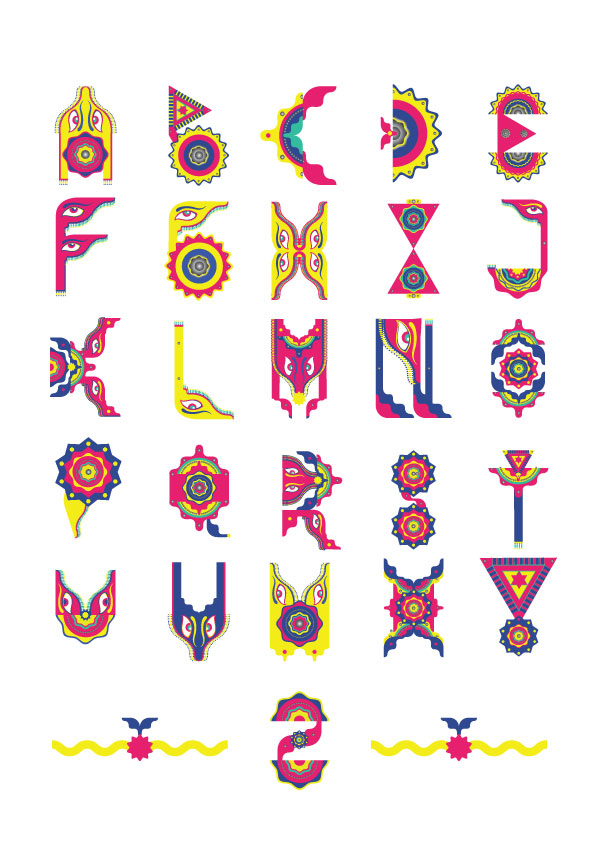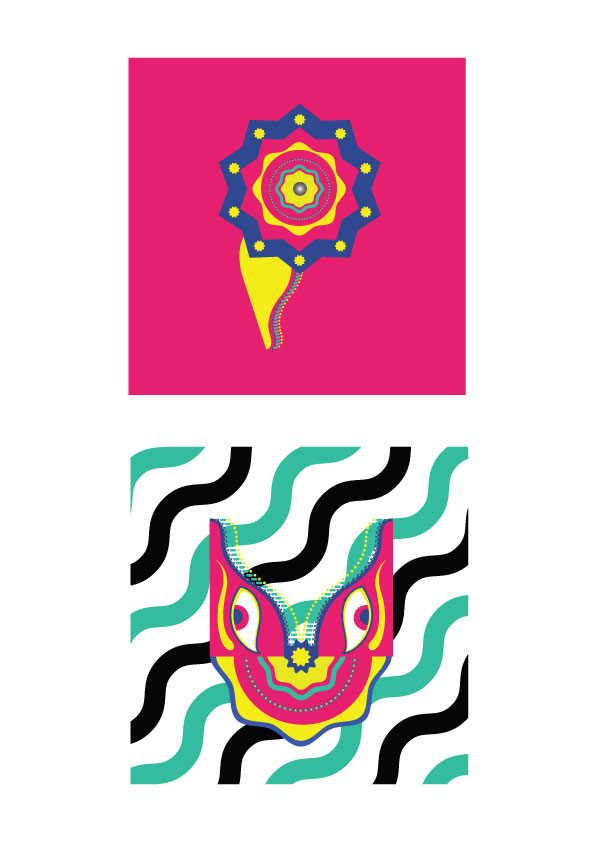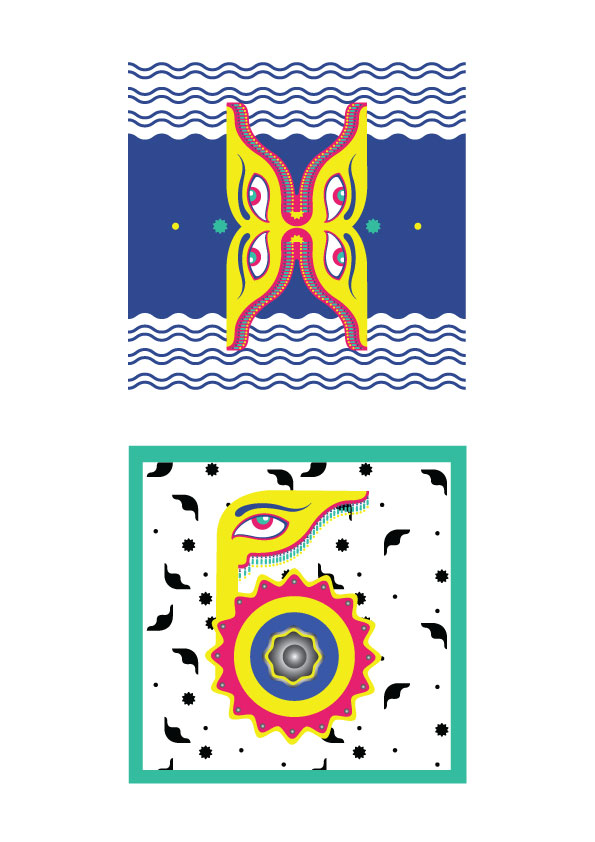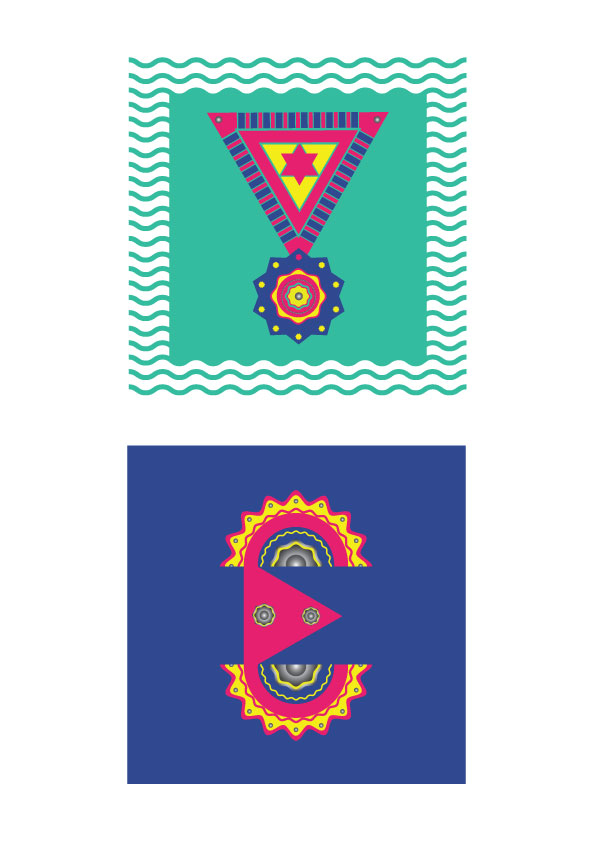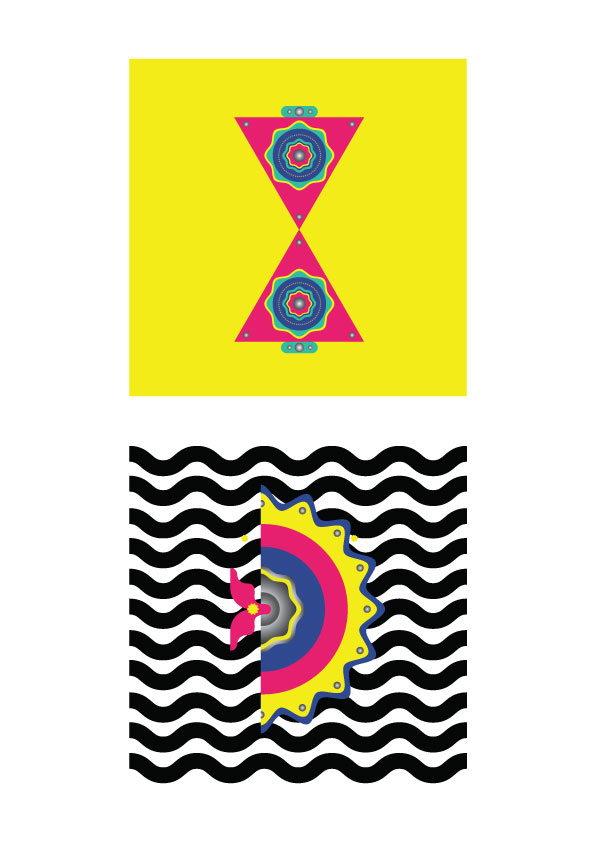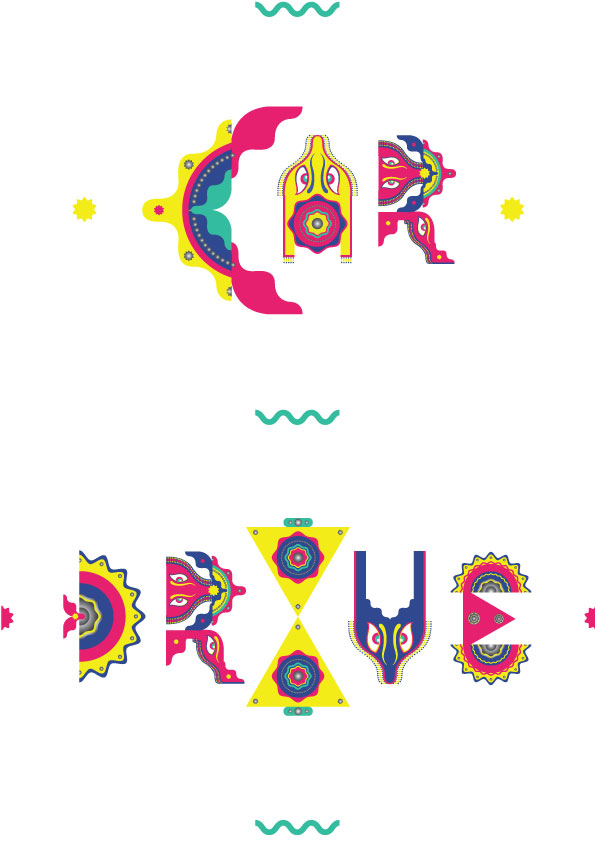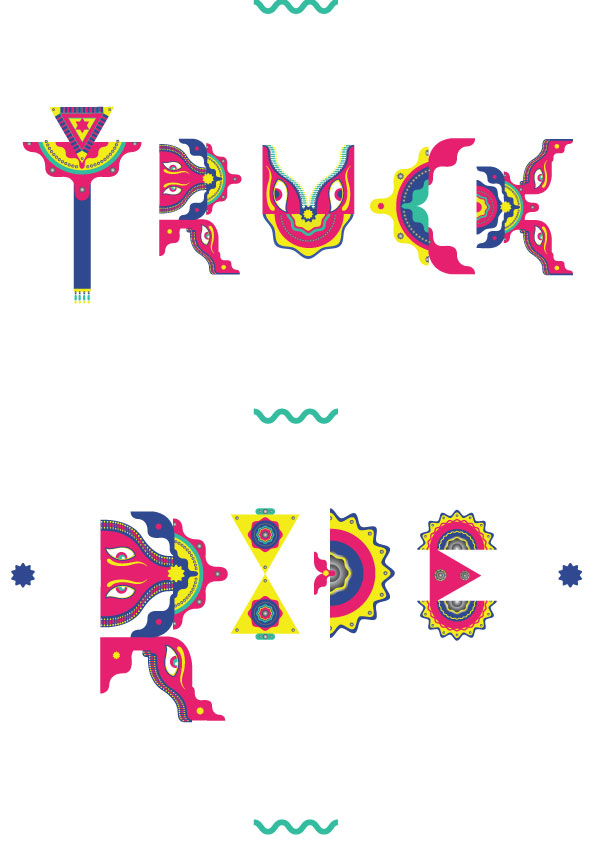
trucky happy
A very funny handset font :))
inspired by Trucks in Pakistan,
india and Thailand.
Suitable for using as a Headline such as Poster Design, Cd-music cover, T-shirt design, and other Editorial design.
Contain with A-Z alphabets. 26 glyphs in total.